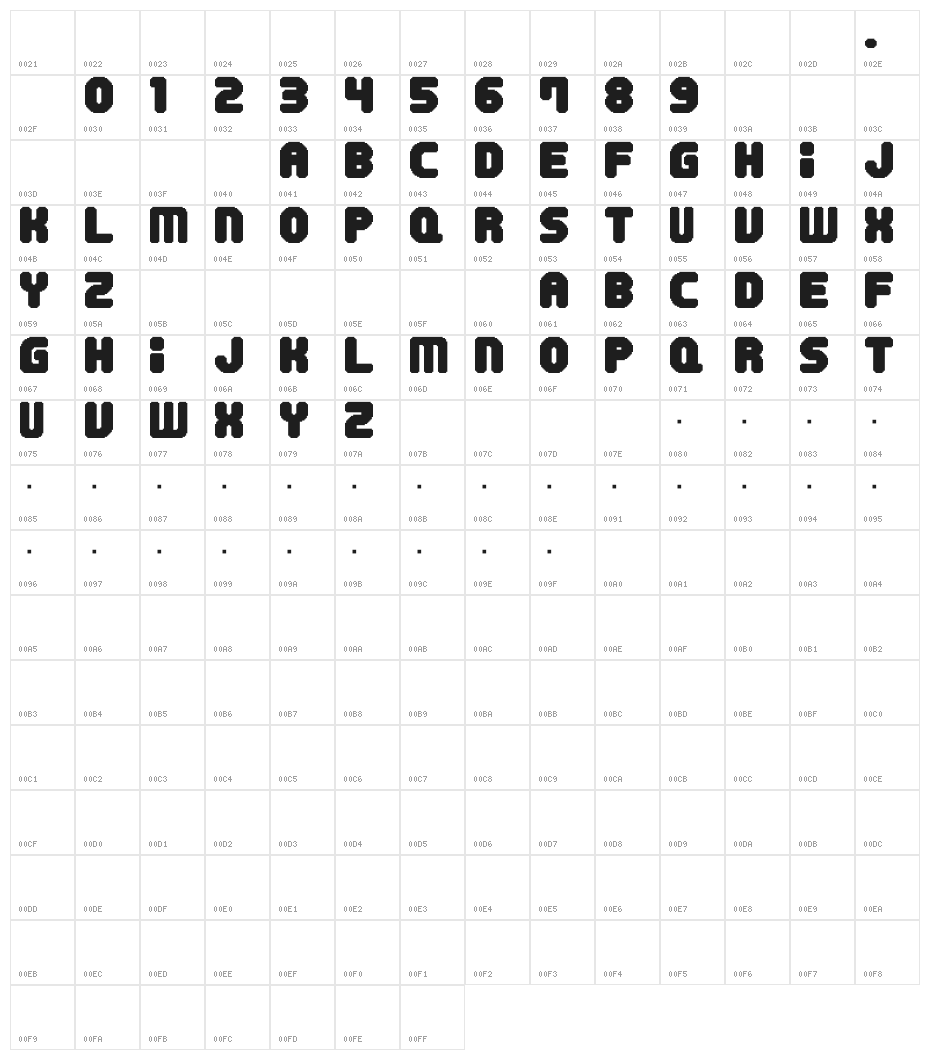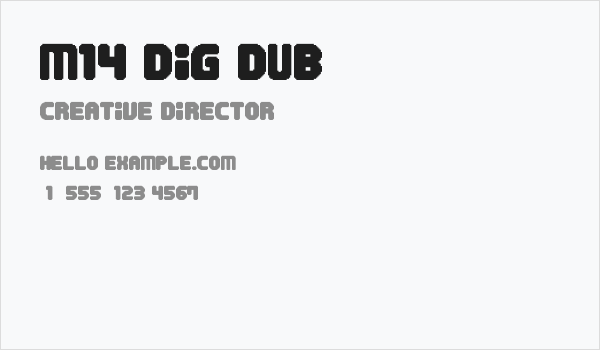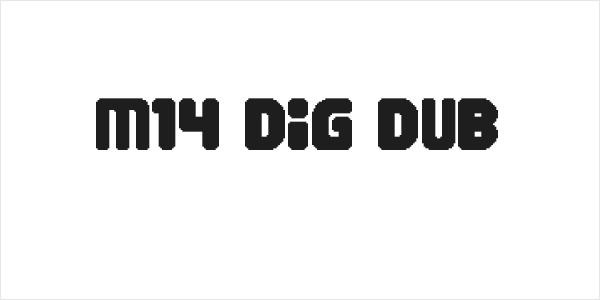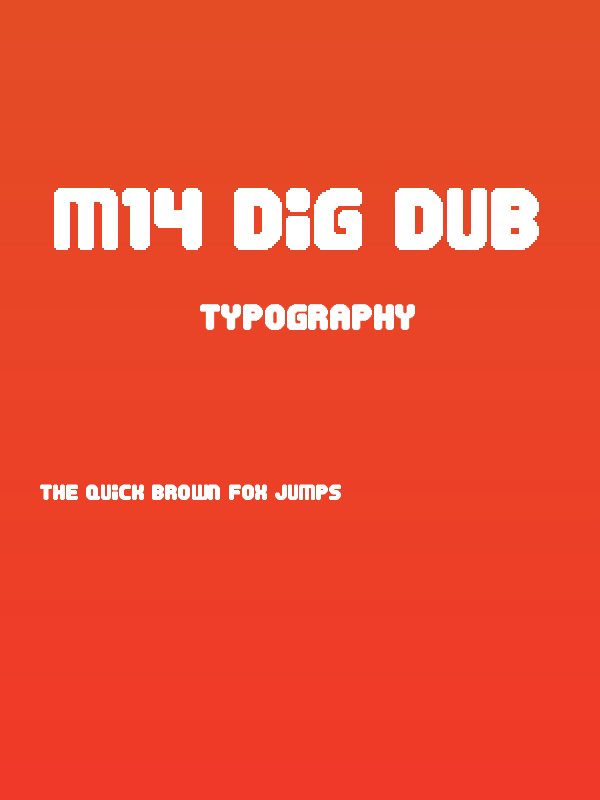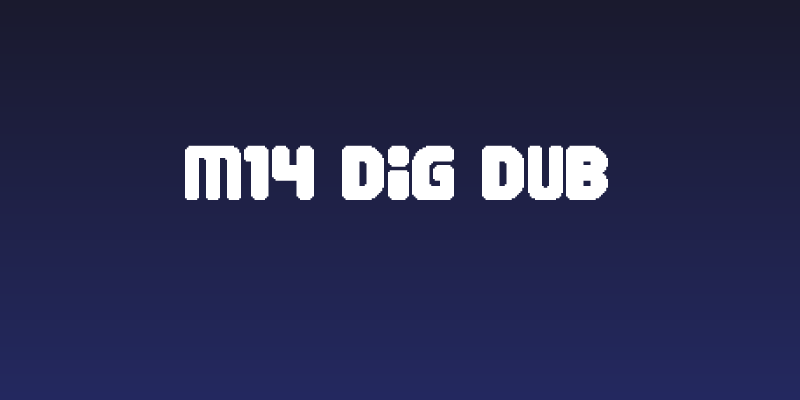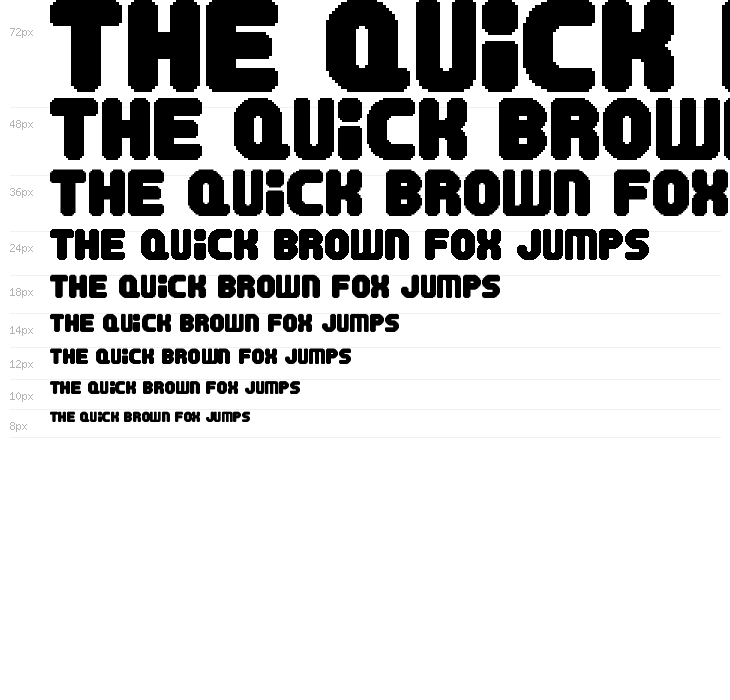
M14_DIG DUB Font
M14_DIG DUB Description
This font features a bold, geometric style with a digital aesthetic, reminiscent of early digital displays or pixelated screens. The characters are uniformly thick, with a blocky, square shape that gives them a modern and tech-inspired look. The uppercase and lowercase letters are similar in style, maintaining a consistent visual weight throughout. The numbers and special characters follow the same design principles, ensuring a cohesive appearance across all glyphs. This font's distinct style makes it ideal for projects that require a futuristic or digital theme.
| Proposed Projects | Ideal for digital displays, tech-themed designs, video game graphics, and futuristic branding. |